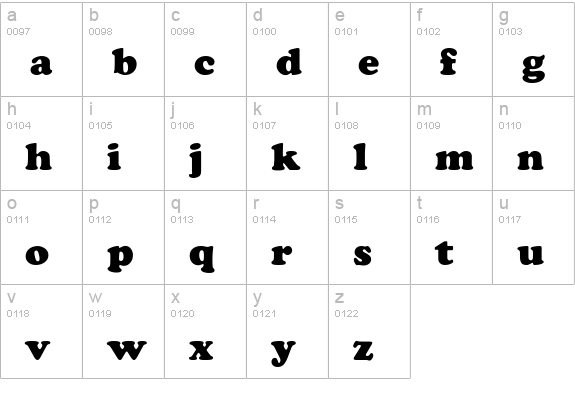
Cooper Font Details
Cooper font is a timeless and classic typeface that exudes elegance and sophistication. With its distinctive serifs and stylish curves, Cooper font is a versatile choice for a wide range of design projects. Whether used for branding, editorial design, or signage, this font adds a touch of refinement to any layout. The best part is that Cooper font is available for free download at FontsMarket.com. So you can easily access this beautifully crafted typeface and enhance your design creations with its charm and charisma. Don't miss out on the opportunity to elevate your designs with the timeless appeal of Cooper font, now conveniently accessible at FontsMarket.com.